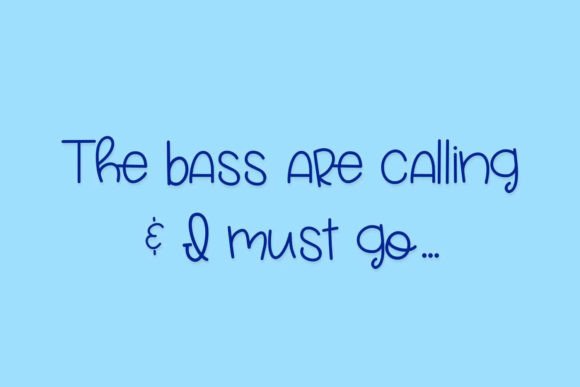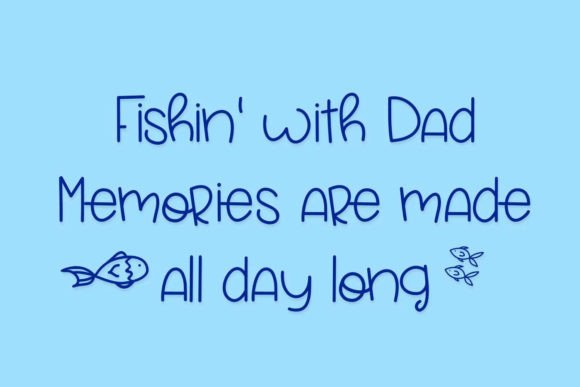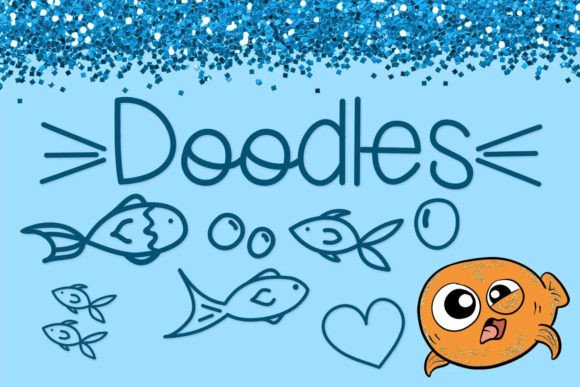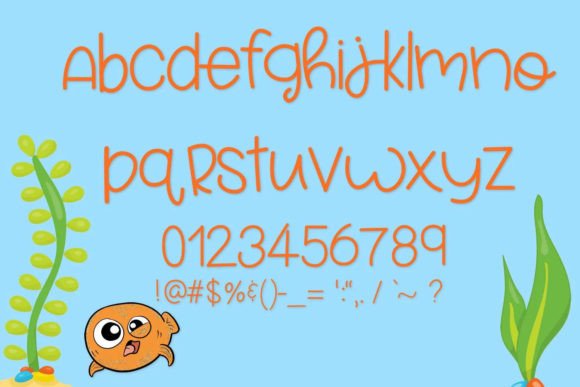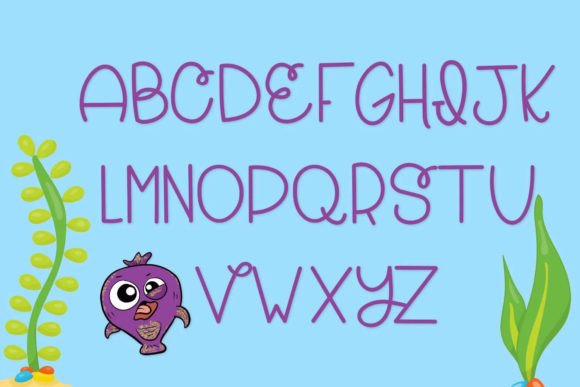
Introduction to Fish Face Font
Introducing Fish Face a fun handwritten font with doodles.
Whimsical and a bit quirky, this font will brighten up each of your designs Add it confidently to your projects, and you will love the results.
Key Features of Fish Face Font